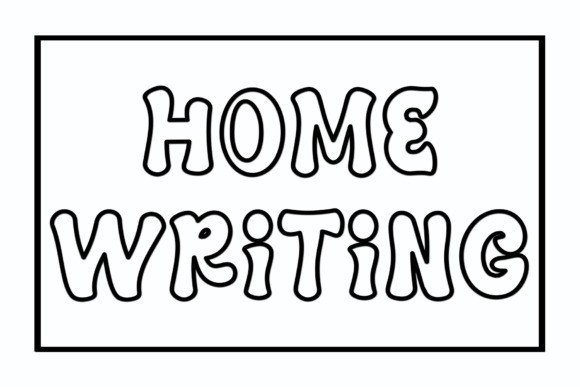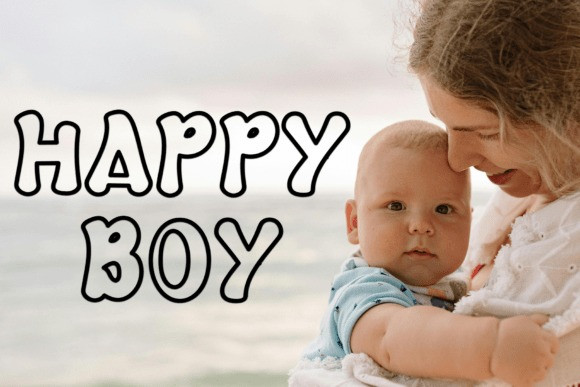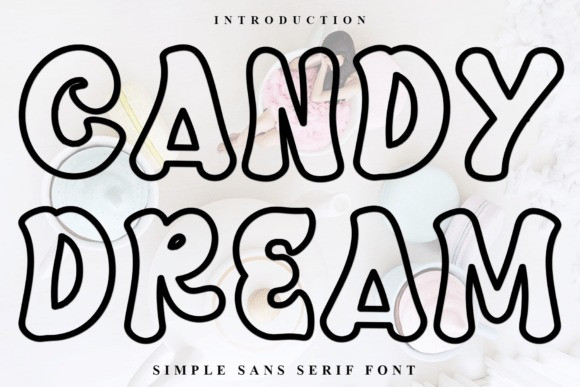
Candy Dream Font
Candy Dream Font a delightfully soft and “bubbly” sans-serif display typeface designed to radiate comfort and joy.
The Candy Dream typeface features thick, rounded outlines that create a puffy, cloud-like appearance, making every word look inviting and playful. Each glyph in the Candy Dream font is crafted with smooth, pillowy curves that lack any harsh edges, perfect for a “simple sans serif” look that appeals to both children and adults.
The Candy Dream typeface is an excellent choice for lifestyle branding, bakery logos, and social media content that needs a touch of whimsy. You can enhance the Candy Dream font by using it in pastel or vibrant neon palettes to make it pop against soft backgrounds.
This Candy Dream typeface pairs beautifully with delicate thin-line icons or hand-drawn illustrations. It is the ideal font for turning a standard headline into a dreamy, approachable focal point for your next design project.